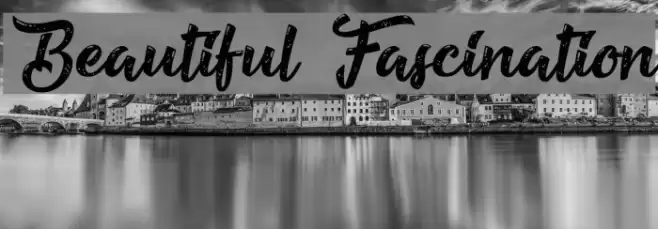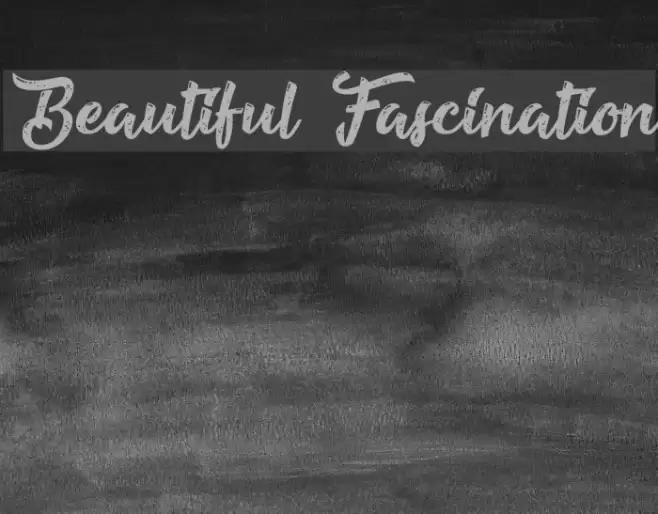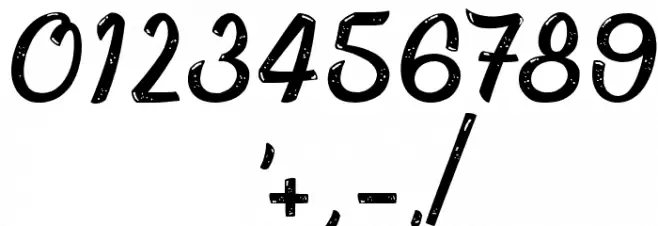
Beautiful Fascination Font
Beautiful Fascination Description
This font features a decorative and artistic script style with a hand-drawn appearance. The uppercase letters have a unique flair, with intricate loops and swashes that add a sense of elegance and creativity. The lowercase letters maintain a consistent flow, enhancing readability while retaining the artistic touch. The numerals and special characters are bold and clear, complementing the overall style. The font's distressed texture gives it a vintage feel, making it suitable for projects that require a touch of nostalgia or artistic expression.
A decorative script font with a vintage, hand-drawn style and distressed texture from Uncategorized fonts.
- Proposed Projects: Ideal for wedding invitations, greeting cards, branding, and artistic posters.
- Overall Style: Decorative, Vintage
- Use Case: Logos, Headlines, Artistic projects